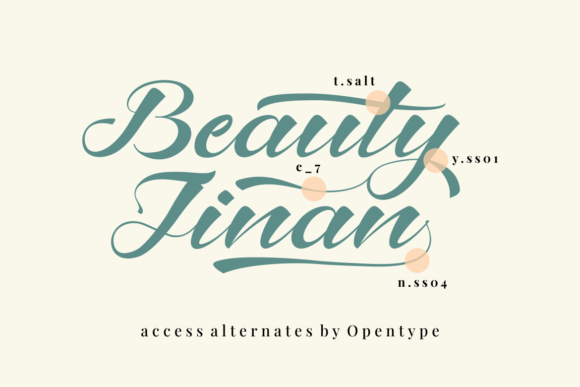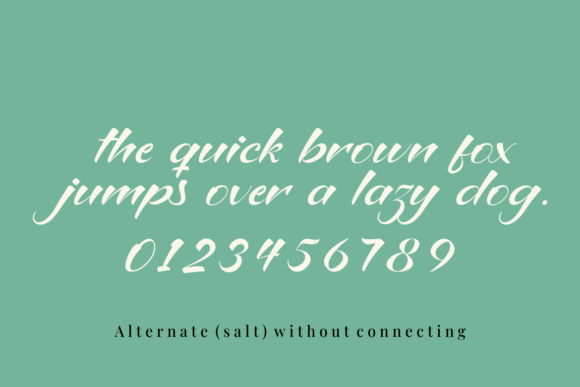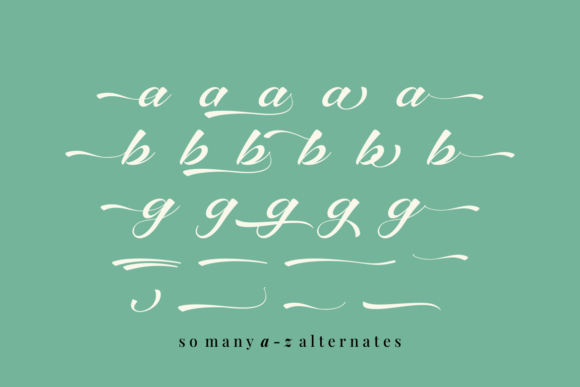
Introduction to Beauty Jinan Font
Beauty Jinan is an elegant script font with a contemporary atmosphere and impeccable form, inspired by timeless classic calligraphy.
Not too thin and not too thick, balanced and varied, this font was designed to enhance the beauty of your projects Beauty Jinan is PUA encoded which means you can access all of the glyphs and swashes with ease.
Key Features of Beauty Jinan Font